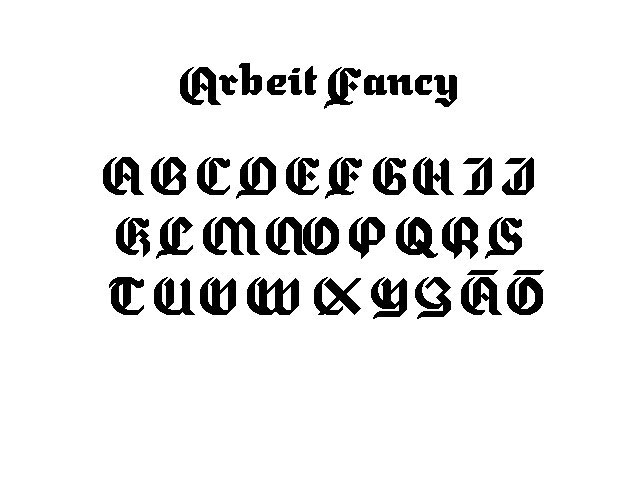
![]() ![]() ![]() screen type basic info : presentation half way : ![]() Assignment Boring bitmaps for hardcore type nerds. Choose your platform: whether it is a mobile phone screen or scrolling message boards, find a best legible forms for this particular platform. Study all the aspects of legibility: curves, x-height, spacing and so on. Arbeit The famous Austrian typographer, baron Walter WeissmÄller once said: 'Typefaces are like women; you know when you meet a nice one. You also have to consider very carefully what you gonna do with it.' So, inspired by this distinguished gentleman, we decided to share the whole typographic pie. We worked hard to have screentype font which work and look good, like a real women. The result is more than excellent. The font flirts with the reader and gives the juiciest taste for any screen-based action. Enjoy, beba and nauti from our creation. Facts All of us started to put pixel after pixel at point size 48. That size is easily scalable to 24 and 12 point sizes. At one point one of us made upright italic h that was using 45 degrees angle of broad nib pen. 45 degrees gives a smooth line, so we decided to go on by doing other letters as well. One of us concentrated to lowercase and the other to make those lowercase letters with outline. Outline version has different spacing, some parts are more fine tuned. Two of us went forward with the caps: our final solution has now both regular and fancy black letter caps. ![]()
![]() 14 comments so far: read comments ![]() ![]() Hrant H Papazian -- Friday, October 25 2002, 01:25 am If a font is a woman, then what are the individual glyphs? All I know is, if that lc "g" were a woman, I would *beg* to be her slave... hhp Tamye | SOTA -- Friday, October 25 2002, 08:22 am The trend in creating these type of fonts has been so minimalistic; what is the smallest possible grid we can build a typeface on, while retaining legibility? I'm pleased to see this exploration of a display size type for the screen. The design of this face is slightly ornate and very appealing, and nicely structured overall. I'm a sucker for a well drawn outline typeface, and this one is fine work. One glyph that looks odd is the cap Z in Arbeit Regular. The stroke being so thin looks very weak, especially in conjunction with the also-thin lower arm. Normally, the cap Q is one of my favorite letters - here, I don't like the detached tail so much. It's distracting. The lowercase forms are the most attractive. And those "f" ligatures - they're really quite yummy. anssi@screentype -- Friday, October 25 2002, 10:39 am thanks for the detailed feedback! It's true that there are many details to be fixed *sigh*. For example, some uppercase letters need more attention... like the "Z" as you mentioned. Anyways, we're still working hard to get the biggest problems fixed before 4PM Finnish time, when the workshop closes. Keep your fingers crossed! Stefan Hattenbach | MAC Rhino -- Friday, October 25 2002, 12:58 pm This Arbeit font is cool! Interseting way of thinking to expand the vision from 5-6 points up to 48 points. Looks modern with a touch of Gothic. Some details have to fixed, but for sure a good start. Joancarles Casasín [Typerware/2] -- Friday, October 25 2002, 01:47 pm I'm not into the Black Letter. But the others are nice. You should show different sizes... anssi@screentype -- Friday, October 25 2002, 02:24 pm Different sizes? The Arbeit font designed to be used in 48pts. (well, actually 50pts, I'll explain it later) It is scalable quite nicely to – let's say – 12pts, but it is the headline use we are aiming for. So the examples you see on bottom line have not been anti-aliased, they are set in the exact point size they are meant to be used on screen. But hey, thanks again for comments, I'll make some samples in variable sizes also. Hold your horses! anssi@screentype -- Friday, October 25 2002, 02:31 pm So - the typeface is constructed so that it follows the 48-point grid, but the font itself - thx for Fontographer 4.1.4 - has been made in 50pts. The x-height is 20 units, ascenders and descendes usually 12 units. And of course, there are a bunch of exceptions. Woo-hoo! hugo@visionandfactory.com -- Friday, October 25 2002, 03:45 pm Very amusing to see that very old typefaces can be so renewing when redone. I don't want to give comments on pure typographical base. For me that is not an issue. However, I do like the process, the experiment to discover the edges of what's possible or still readable. Nevertheless congratulations with the interesting work! Hugo Puttaert http://visionandfactory.com anssi@screentype -- Friday, October 25 2002, 05:01 pm thanks for all comments! The uppercase "Z" has been fixed ;) with other small alterations also. The workshop is closing, so I think that's about it at the moment. If you feel like it, please send more comments, we'll be watching this space! Cheers! anssi@scrtp -- Monday, October 28 2002, 01:04 pm hey. we're still here. just a reminder. hehe:) and Bas, the new record in Snake2 is now 2546. my fingers are still bleeding... tommi@sulake.com -- Thursday, October 31 2002, 11:27 am How come it's so big? 48 pts really is enough to use antialiasing on screen without destroying the font as a wholeness. As a starting point for such screen font I'd more prefer smallest point size - character of the font can be brought from smaller sizes to bigger, but from bigger to smaller it's difficult… and in case of serifs and more detailed works often impossible. Anyway, good job: cuts finely and works well as headline… still, I would really like to see a 12 pts version just in comparison - can you really say it's the same font? Oh what the heck, who cares anyway… Take care. anssi@skriintaip -- Thursday, October 31 2002, 09:01 pm first, this was more of an experiment, so that's why we decided to start from a different point of view. besides, there are plenty well done small size pixel types available, so why make a new one? and if you think of cellphones, for example, the types usually suck (logos, screensavers, and so on). in cellphones there is no anti-aliasing (yet?) so our type could be used there? who said that a screen type is for computer screens only? :) Hrant H Papazian -- Monday, November 4 2002, 06:38 pm > 48 pts really is enough to use antialiasing I think it would indeed be nice to have a hand-anti-aliased version, but this is useful too. One reason is memory efficiency, especially for use in small devices. hhp 1stfloor -- Tuesday, March 2 2004, 06:23 pm Where can i buy this font??? Its great Congratulations ![]()